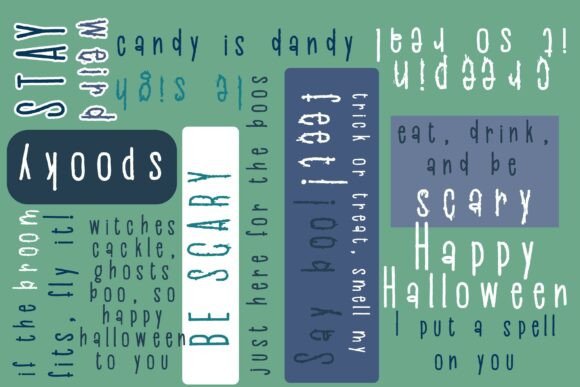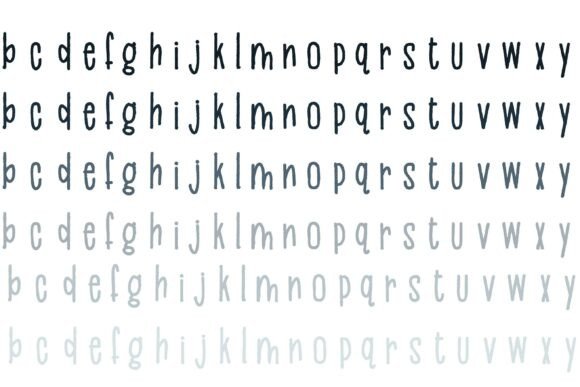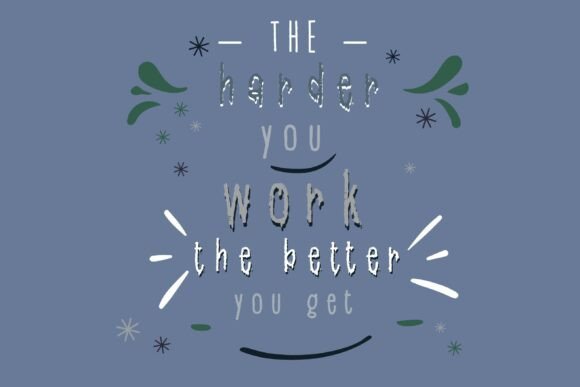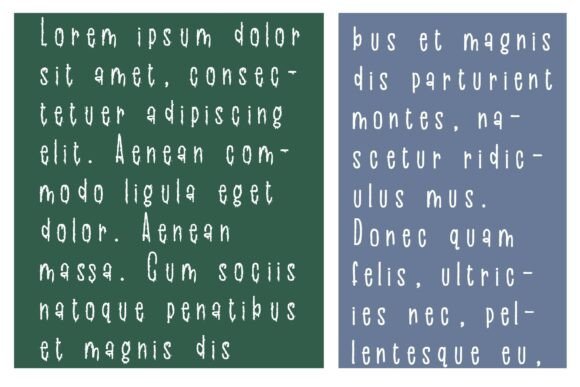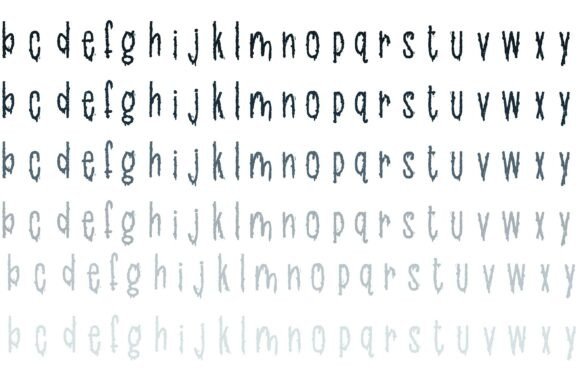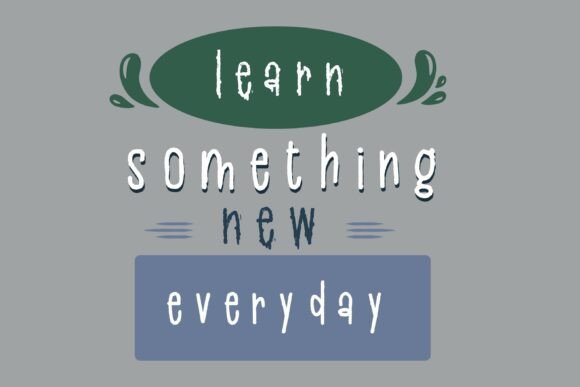
Introduction to Beanboos and Ooze Duo Font
Beanboos and Ooze is a spooky, hand-crafted Halloween font duo that oozes with eerie charm.
This handcrafted font duo combines a scary, drippy, widely spaced, handwritten font with its more friendly, less-scary versions With all family members combined of the two fonts, you get 15 fonts altogether.